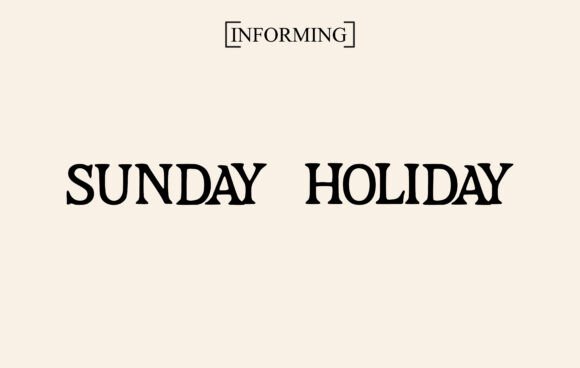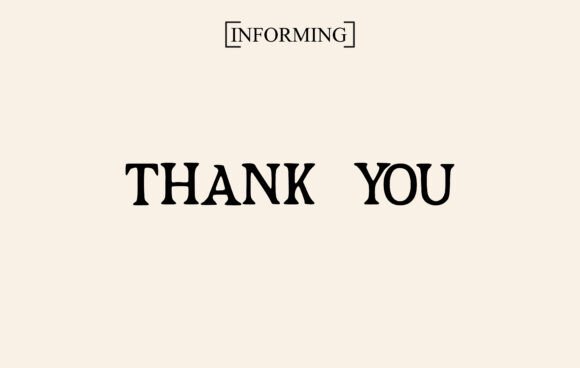
Unlocking the Power of Elegance: Chosen Font
As designers, we’ve all been there – staring at a blank canvas, waiting for that elusive spark that sets our creative vision ablaze. For me, it was the moment I stumbled upon a beautifully crafted typographic piece that left me in awe. The way the letters seemed to dance across the page, exuding a sense of authority and sophistication, was nothing short of magic. And that’s exactly what the Chosen Font aims to achieve – a refined serif typeface that elevates your design to new heights.
Whether you’re working on a luxury brand, an editorial piece, or spiritual content, the Chosen Font is the perfect companion to help you convey your message with elegance and poise. Its high contrast and carefully sculpted serifs make it a valuable asset for designers seeking to create a lasting impression.
Key Features of Chosen Font
- Unique Characteristics: The font features a unique blend of modern and traditional elements, making it perfect for designers and writers looking for a distinctive look.
Designer Review: Chosen Font
Overall, I have mixed feelings about the Chosen Font. While it has some great features, it also has some limitations that make it difficult to work with.
- Unique and stylish design: Chosen Font has a distinctive look that can add a touch of elegance to any design.
- Good for creative projects: Its bold and playful feel makes it perfect for projects like social media graphics, posters, and advertisements.
- High-quality glyphs: The font has well-designed glyphs and a high level of detail, making it suitable for professional use.
- Limited versatility: Chosen Font is best suited for creative projects and may not be the best choice for more formal or technical documents.
- Not suitable for small text: The font’s bold design makes it difficult to read in small sizes, which can be a problem for body text or captions.
- Not a good choice for complex layouts: Chosen Font’s unique design can make it challenging to work with in complex layouts or designs with many elements.
Overall, I think Chosen Font is a great addition to any designer’s toolkit, but it’s not a one-size-fits-all solution. It’s best suited for creative projects where its unique design can shine.
Chosen Font is ideal for:
• Branding and marketing materials
• Creative projects, such as infographics and brochures
• Professional documents, like resumes and business reports